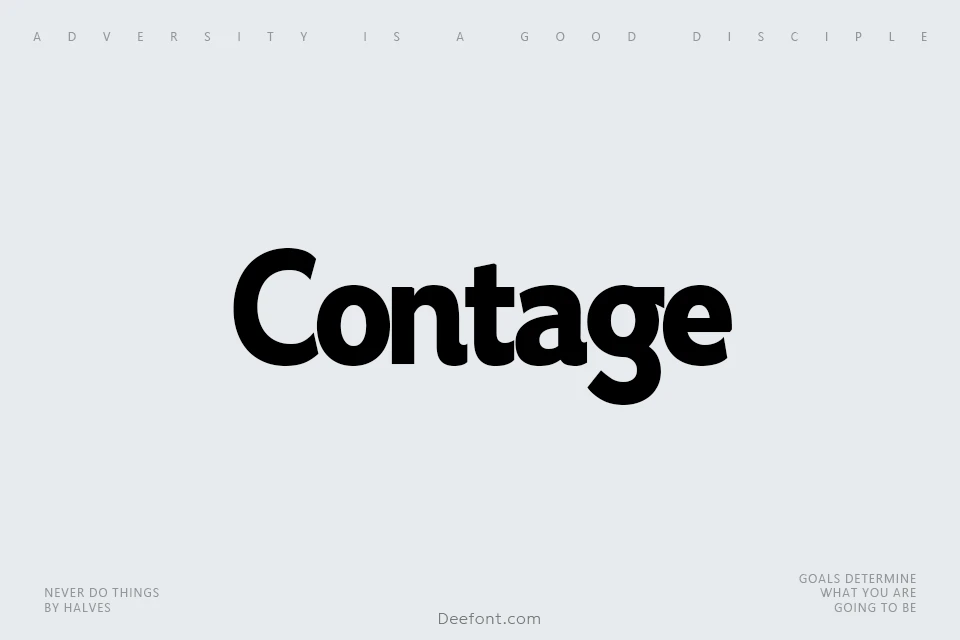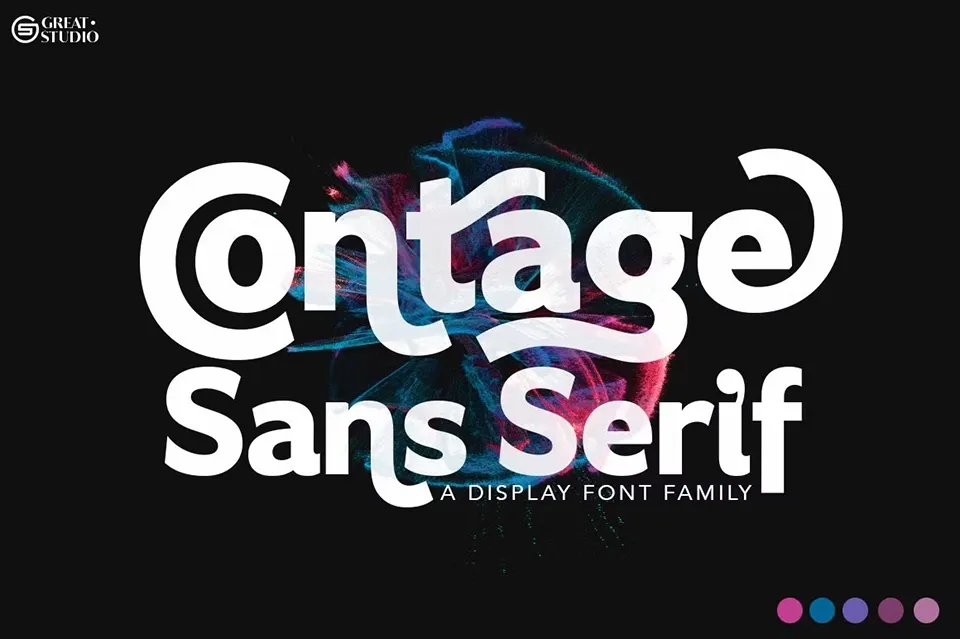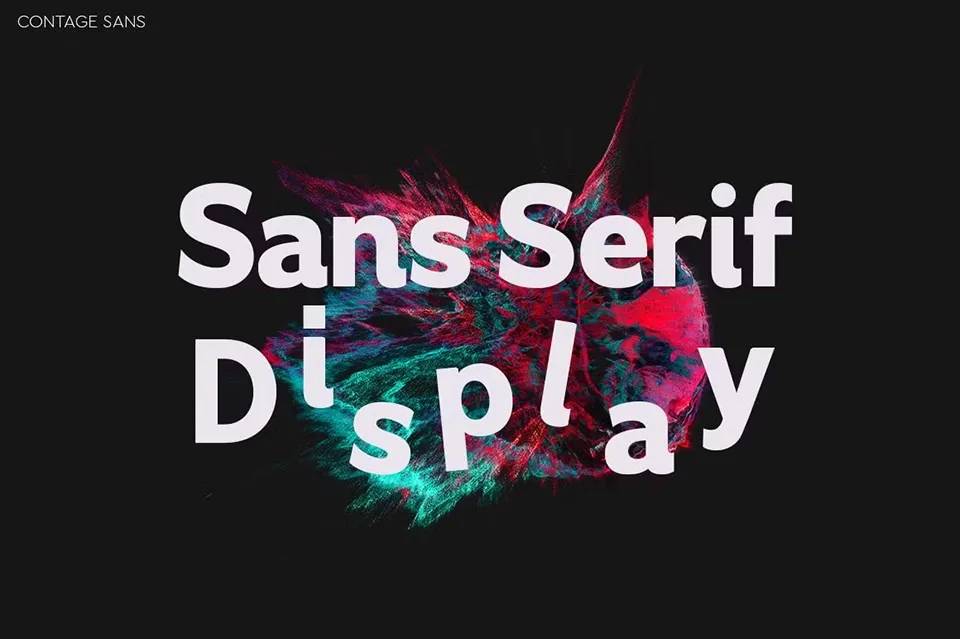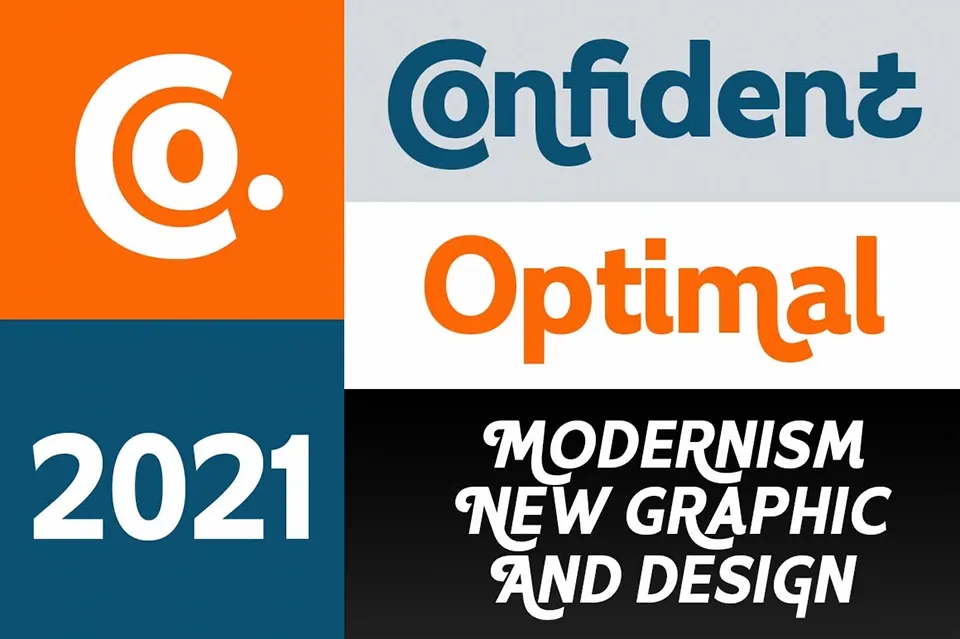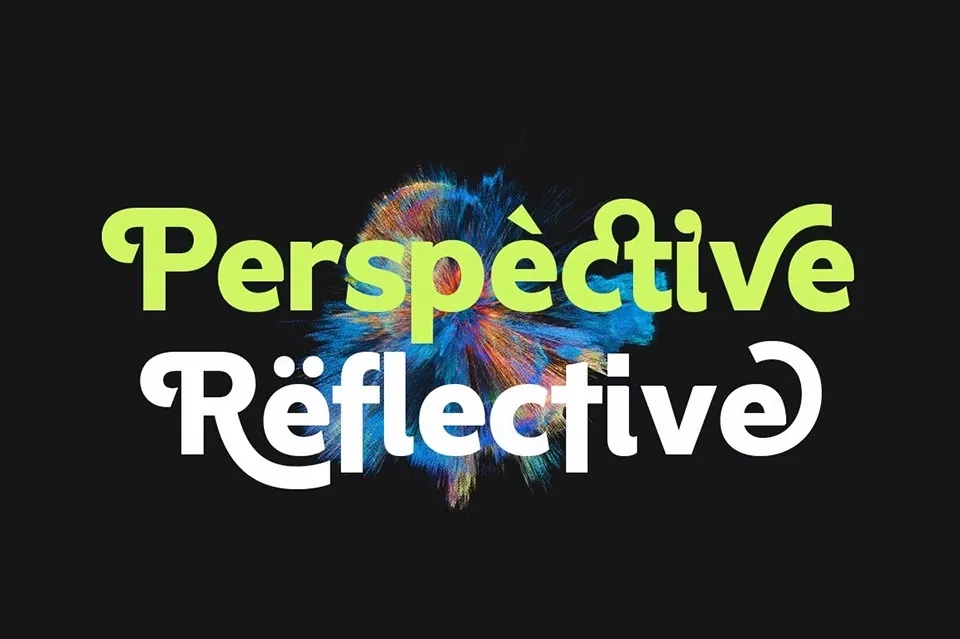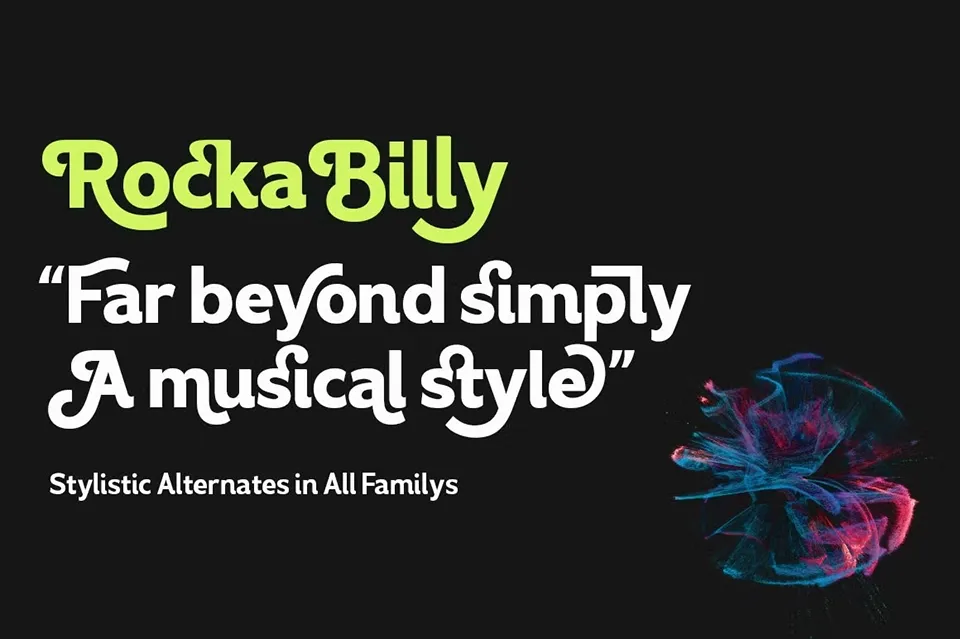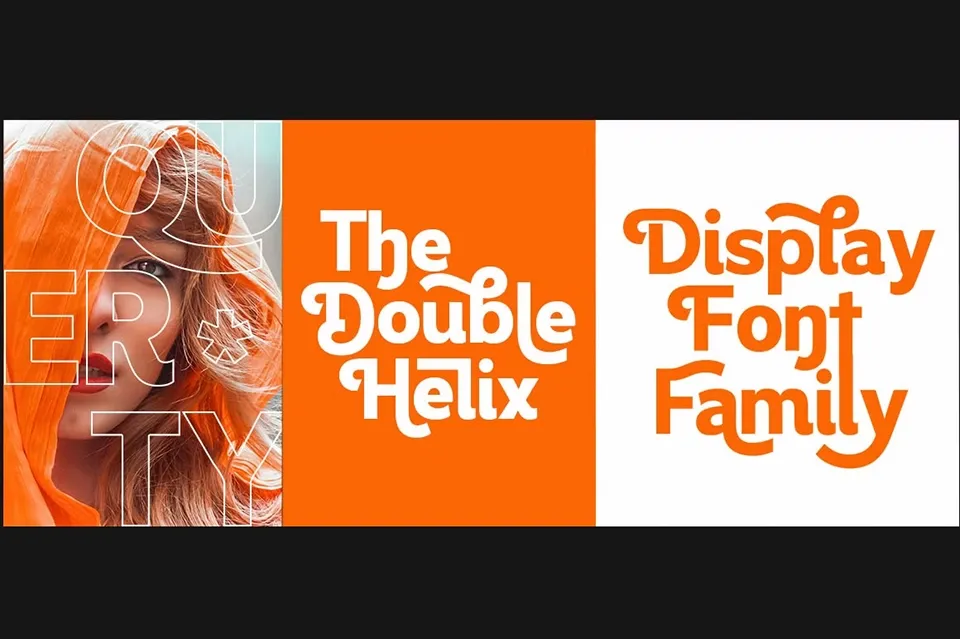
Contage Font Family
The Contage Font Family is a modern display sans serif typeface designed for optimal readability and visual impact. Characterized by its clean geometric forms, numerous ligatures, and stylistic alternatives, this font family is ideal for branding, headlines, and creative projects that demand a contemporary and minimal aesthetic.